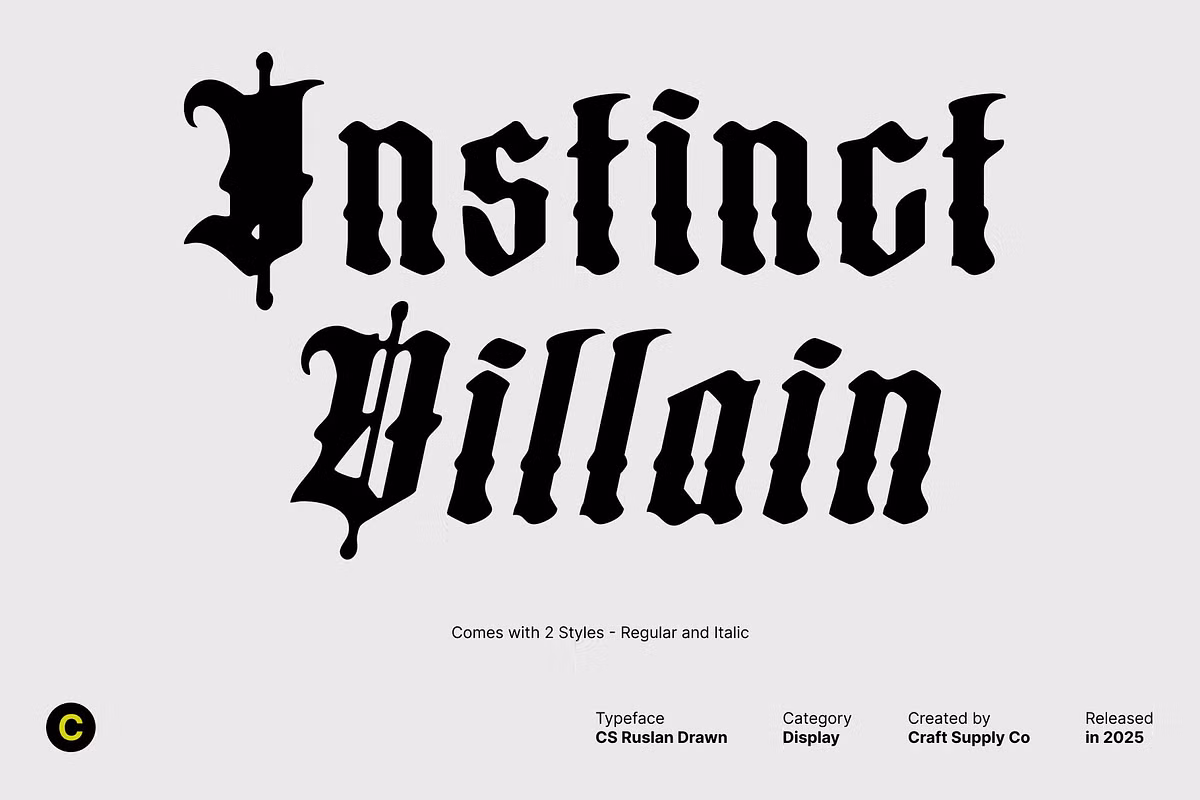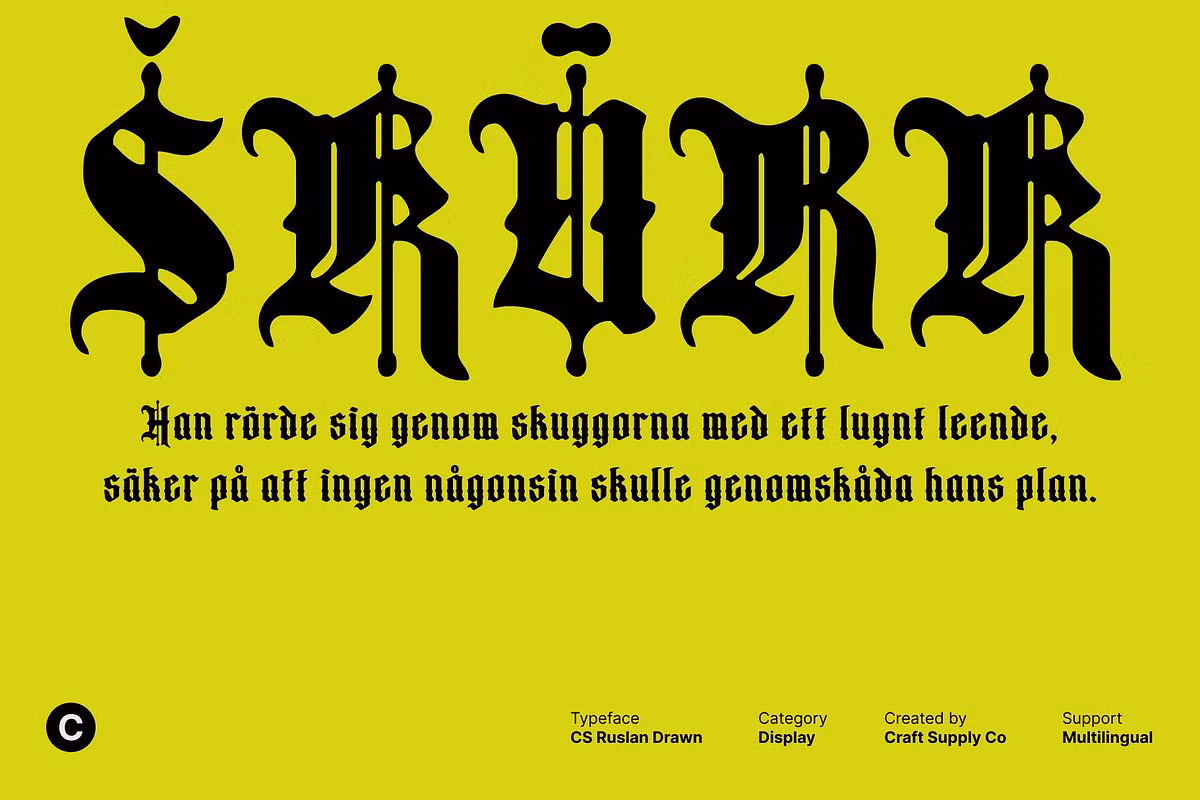
CS Ruslan Drawn: Ornamental Gothic Display Font with Handcrafted Detail
CS Ruslan Drawn
CS Ruslan Drawn: Ornamental Gothic Display Font with Handcrafted Detail
CS Ruslan Drawn is a really cool font that looks like it was made a long time ago. It has lots of fancy details and bold lines that make it stand out. This font is great for making things look important and old-fashioned, like something from a medieval castle. When you use it, your words will look strong and serious, and people will definitely notice them. It’s like a fancy decoration for your text, and it can make anything look more interesting and historic.
An example of gothic typography showcasing ornate details
Example of the intricate details in gothic typography.
Design Style: A Marriage of Tradition and Modernity
The style of CS Ruslan Drawn is really old-school, it’s like something from a long time ago. It’s based on Old English typography, which is all about fancy letters and details. The letters have lots of extra bits, like flourishes and serifs, that make them look super fancy and remind you of old manuscripts from the Middle Ages. What’s cool about this font is that it looks handmade, like someone spent a lot of time crafting each letter by hand, which gives it a really authentic feel.
This font is more than just useful, it’s a work of art. It’s got a really dramatic and sophisticated feel to it, like something out of a gothic story. When you combine its strong presence with the subtle, hand-drawn details, you get a typeface that feels both old and new at the same time. It’s perfect for projects that want to mix old ideas with modern style. The way it looks is just right for balancing history with creativity, making it a great choice for all sorts of designs.
Character Sets and Features: Versatility at Its Best
CS Ruslan Drawn is a pretty cool font, it’s made to be used in lots of different ways. It’s got a big set of characters, including capital and small letters, numbers, punctuation, and even accents for languages that need them. This makes it really useful for all sorts of design projects, because you can make text that looks great but is still easy to read.
Showcasing character sets and features of the font
CS Ruslan Drawn’s versatile character set.
The font is also really easy to use because it has something called PUA encoding. This means you can use it with lots of different design programs without needing any special software. It’s great for designers and creators of all levels, making it simple for them to use CS Ruslan Drawn in their projects.
Use Cases: Where CS Ruslan Drawn Shines
CS Ruslan Drawn is really good for a lot of things, especially when you want to make something look really cool and fancy, like a title for a party with a gothic theme. It’s also great for making posters that grab people’s attention, or for designing pages in a magazine or book. This font is special because it has a lot of personality and can add a lot of drama to whatever you’re working on.
Here are some specific use cases where CS Ruslan Drawn can be effectively utilized:
• Gothic Posters: The font’s ornate style is perfect for creating visually captivating posters that demand attention.
• Editorial Layouts: Use CS Ruslan Drawn in magazines or zines that focus on culture, history, or artistic expression to add a touch of sophistication.
Gothic-themed event invitations designed with CS Ruslan Drawn
Elegant invitations showcasing the font’s beauty.
When a brand wants to show it has a rich history or a creative side, this font can be a big help in making their visual identity really stand out. It’s all about creating a strong impression that sets them apart from others. Inviting people to an event is a big deal, and you want the invitation to look really special. That’s where CS Ruslan Drawn comes in – its fancy lettering can make any invitation, whether it’s for a wedding, a concert, or an art show, look super elegant and eye-catching.
Pairing Suggestions: Enhance Your Typography
To maximize the visual impact of CS Ruslan Drawn, consider pairing it with other typefaces that complement its ornate style while maintaining readability. Here are some pairing suggestions:
• Sans Serif Fonts: Pair CS Ruslan Drawn with a clean sans serif font like Montserrat or Open Sans for body text. This contrast allows the decorative elements of the display font to shine without overwhelming the overall design.
• If you want a classic look, try pairing it with a traditional font like Georgia or Times New Roman. This will give you a consistent feel, and you can still use CS Ruslan Drawn to make headings or titles stand out. The serif font will add a touch of sophistication, while CS Ruslan Drawn will bring a unique touch to your design.
• Using a monospaced font, like Courier New, can give your design a modern look. It balances out the fancy parts of CS Ruslan Drawn with a simple, contemporary font.
If you’re looking to add some edge to your design, whether it’s for a gothic-themed project or a branding idea that needs to stand out, CS Ruslan Drawn is a great choice. This typeface has a lot of character and can add a lot of depth to your work. By using it, you can create designs that really grab people’s attention and leave a lasting impression. It’s perfect for anyone who wants to tell a story through their visuals and make a bold statement. With CS Ruslan Drawn, you can create something truly unforgettable.